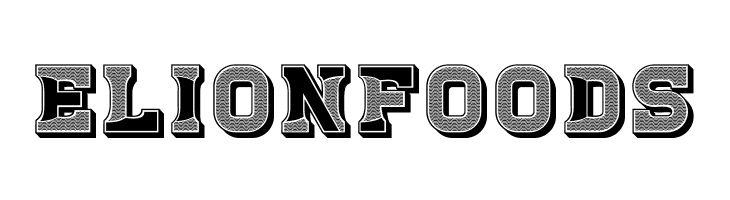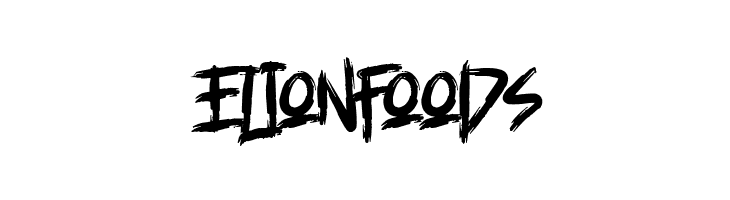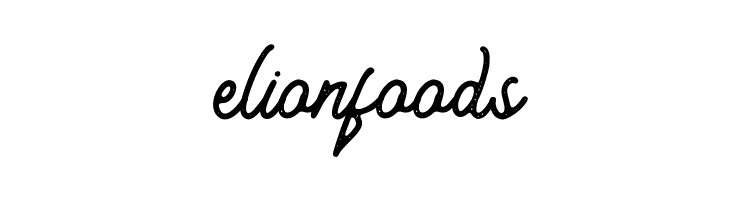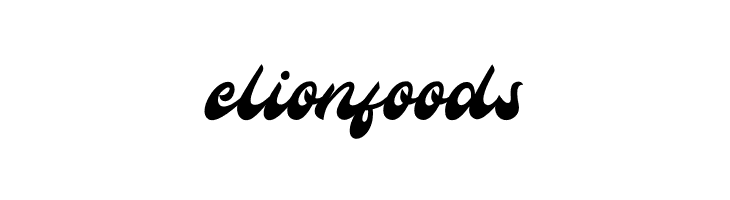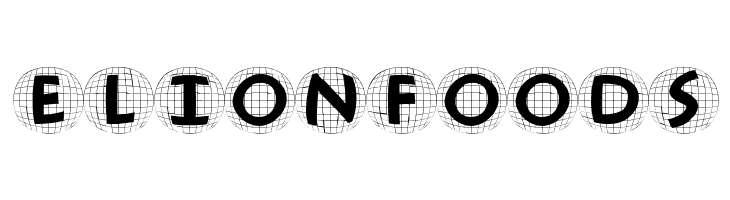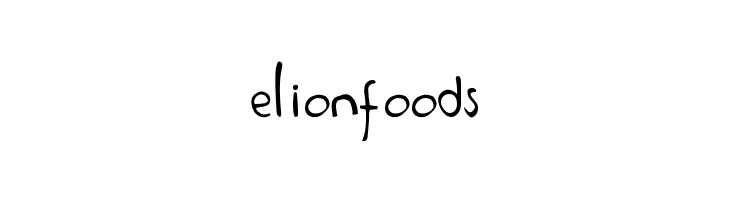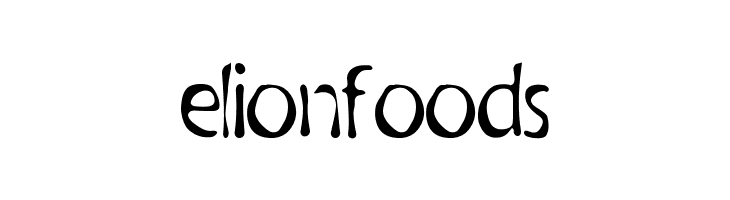
A sleek, modern font with thin, geometric lines and excellent legibility.
A bold, brush-style font with dynamic, jagged strokes.
A cursive, handwritten font with elegant loops and a modern calligraphic style.
A bold, decorative font with a vintage, three-dimensional effect.
A playful, grid-encased font with a modern, balloon-like appearance.
A whimsical, hand-drawn style with a vintage flair.
A vintage-inspired font with artistic, hand-drawn strokes and playful curves.
A bold, flowing script font with elegant, interconnected characters.
An elegant and flowing script font with smooth, cursive strokes.